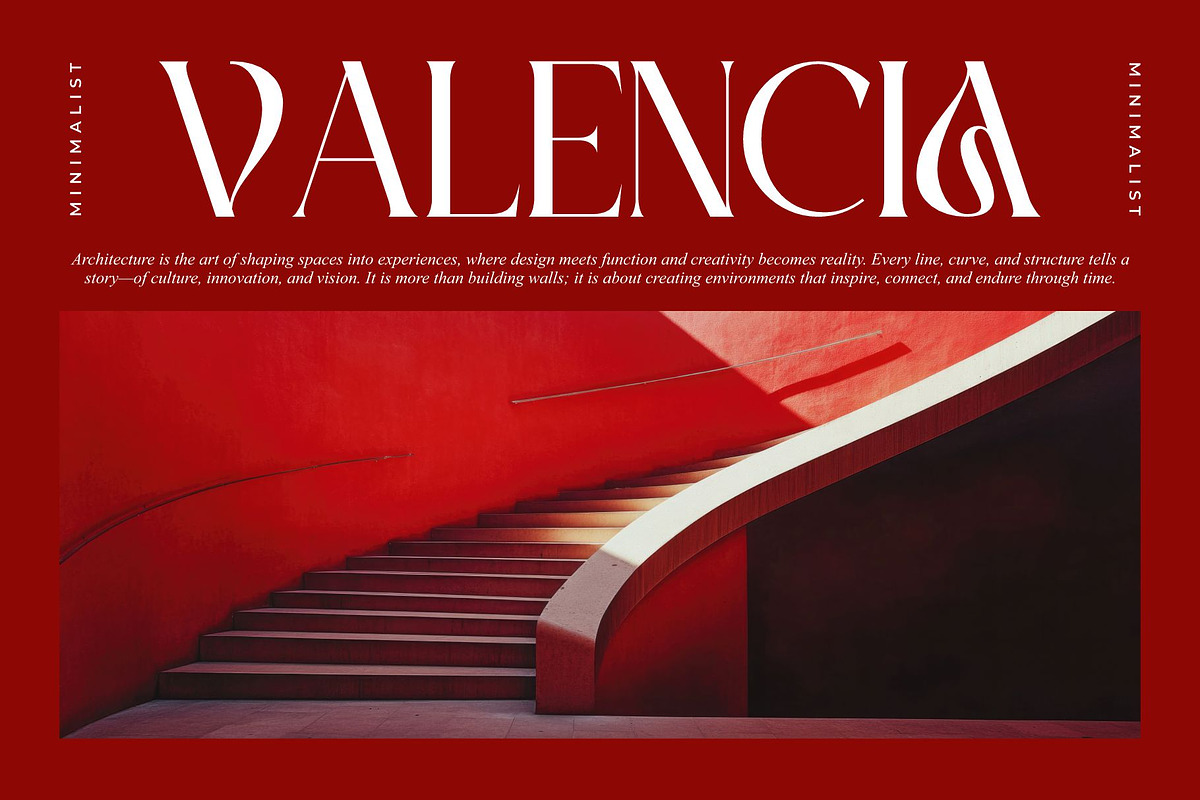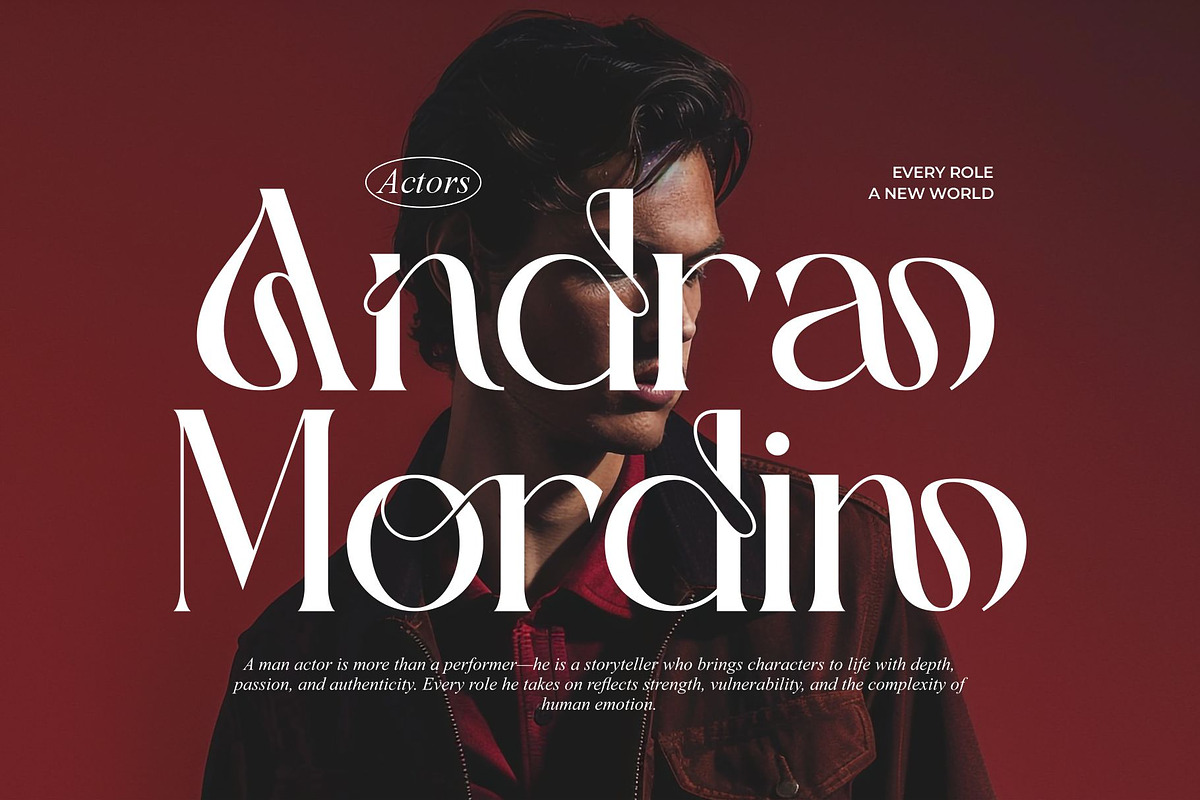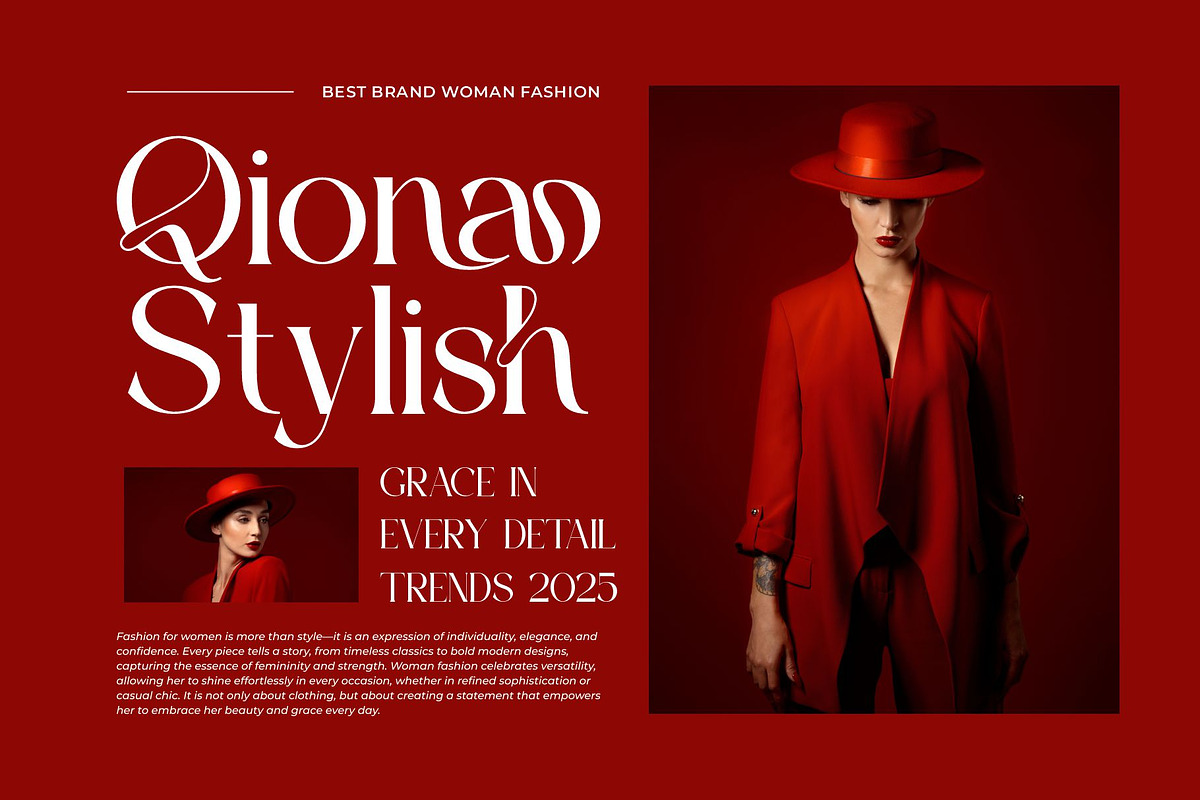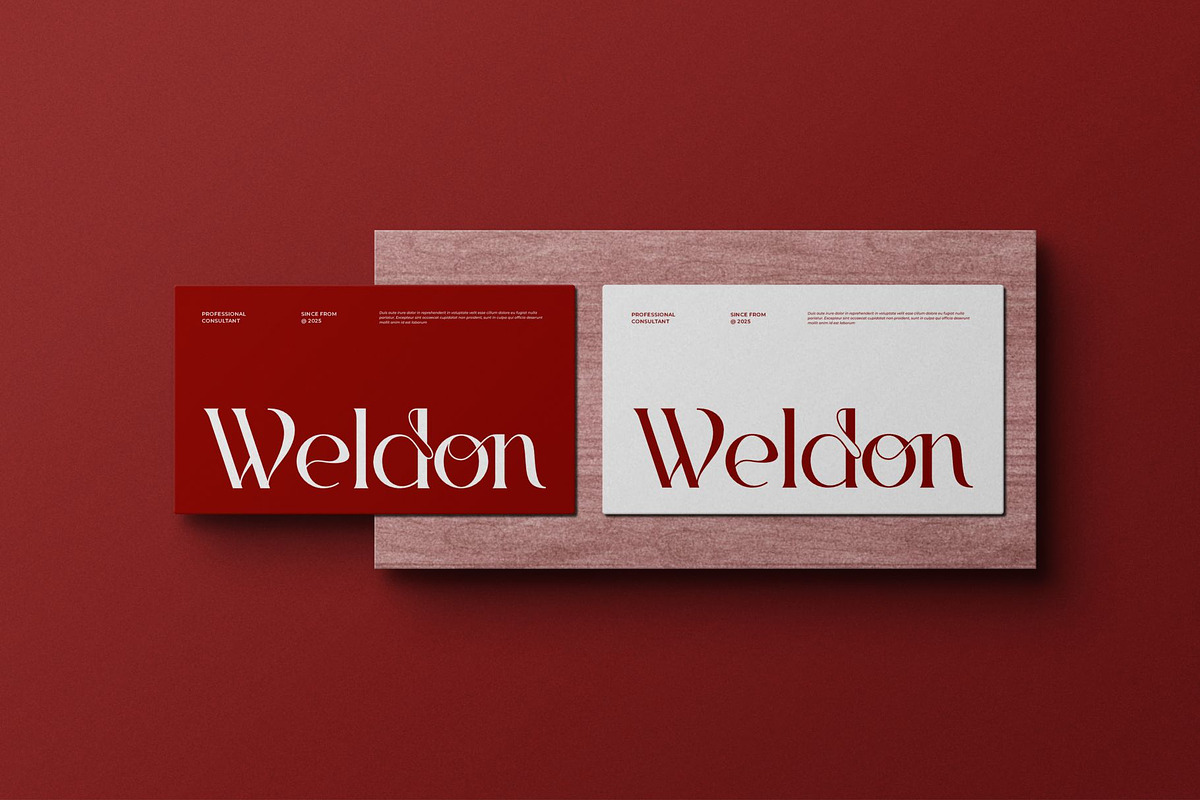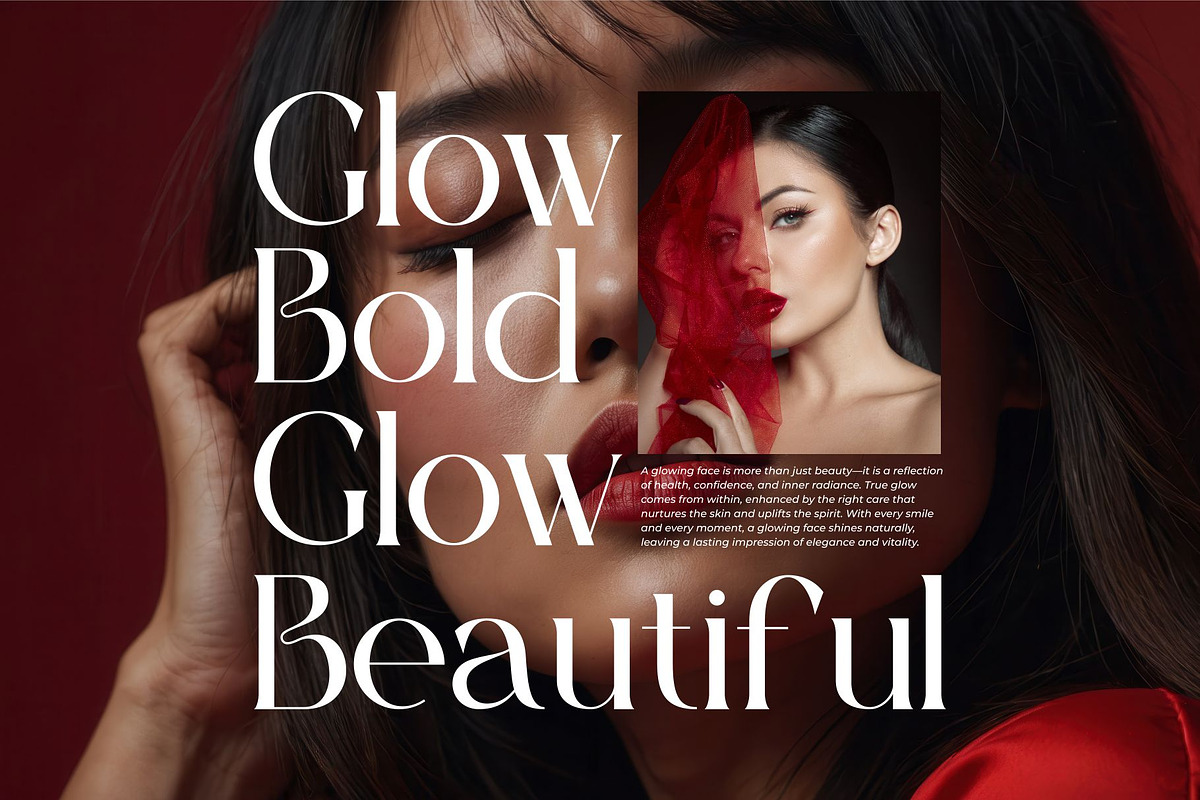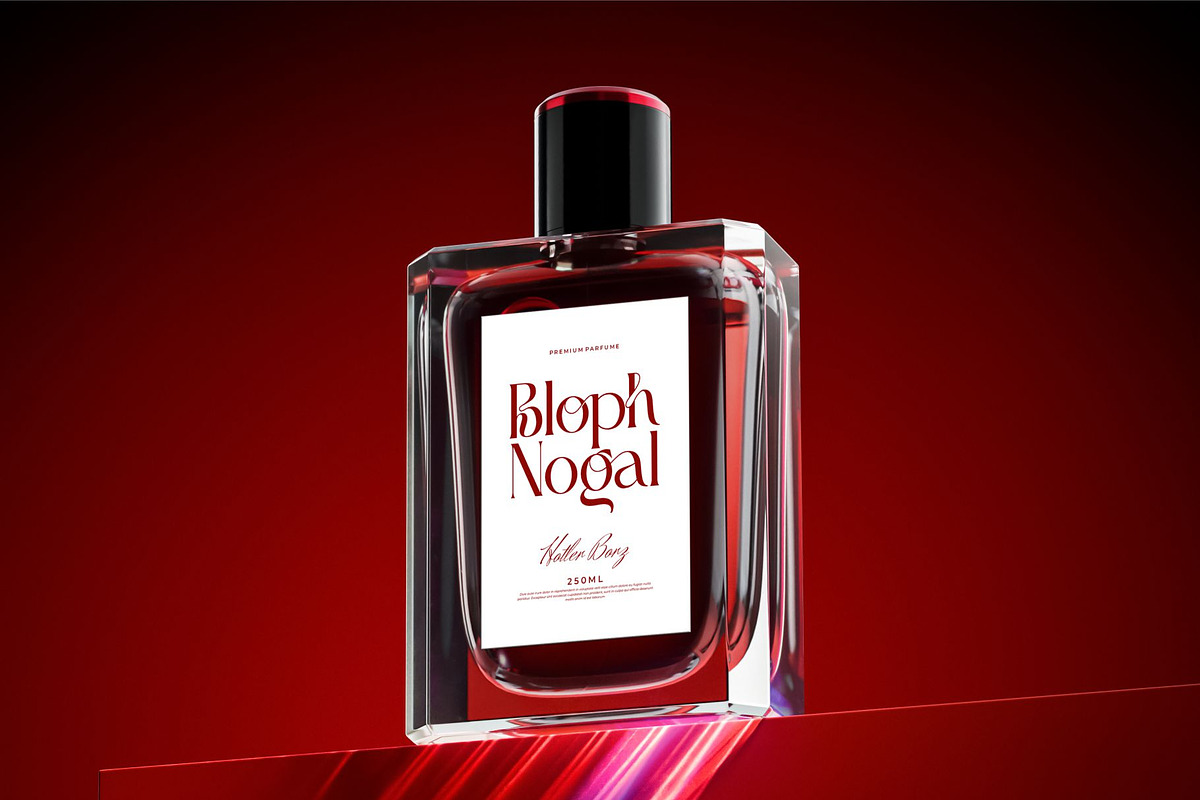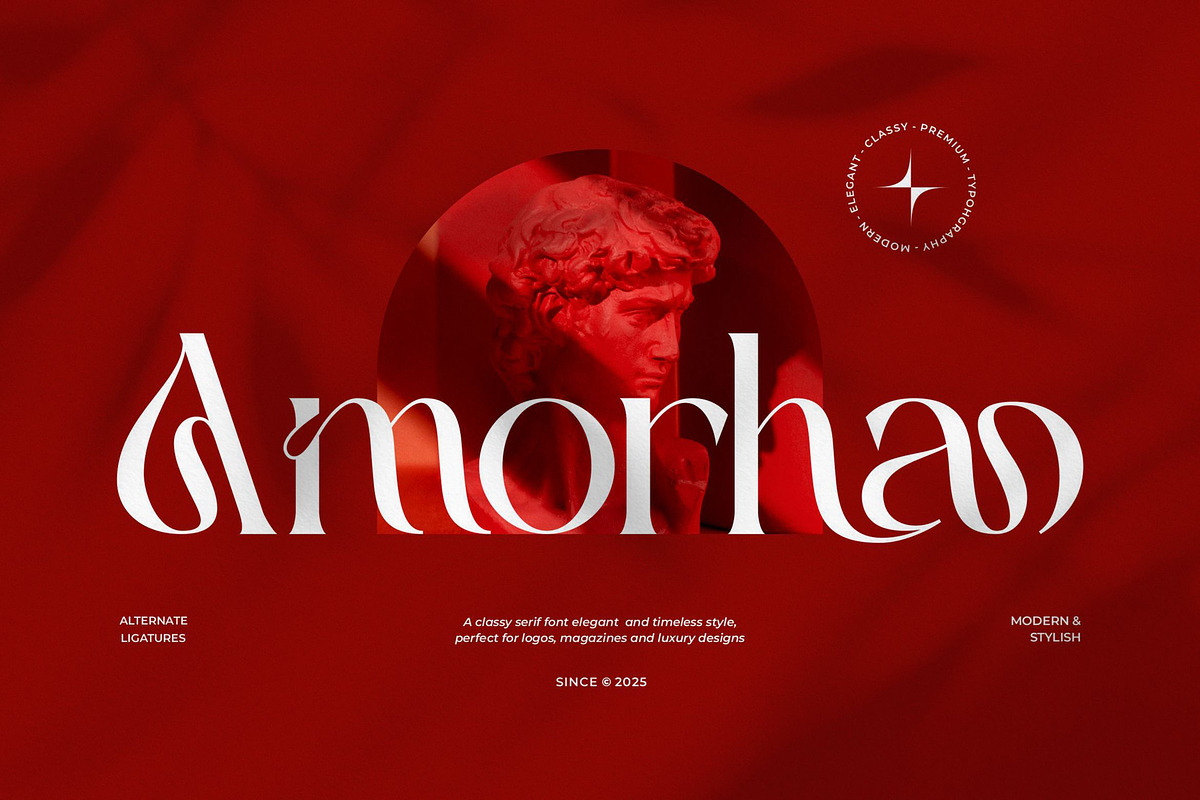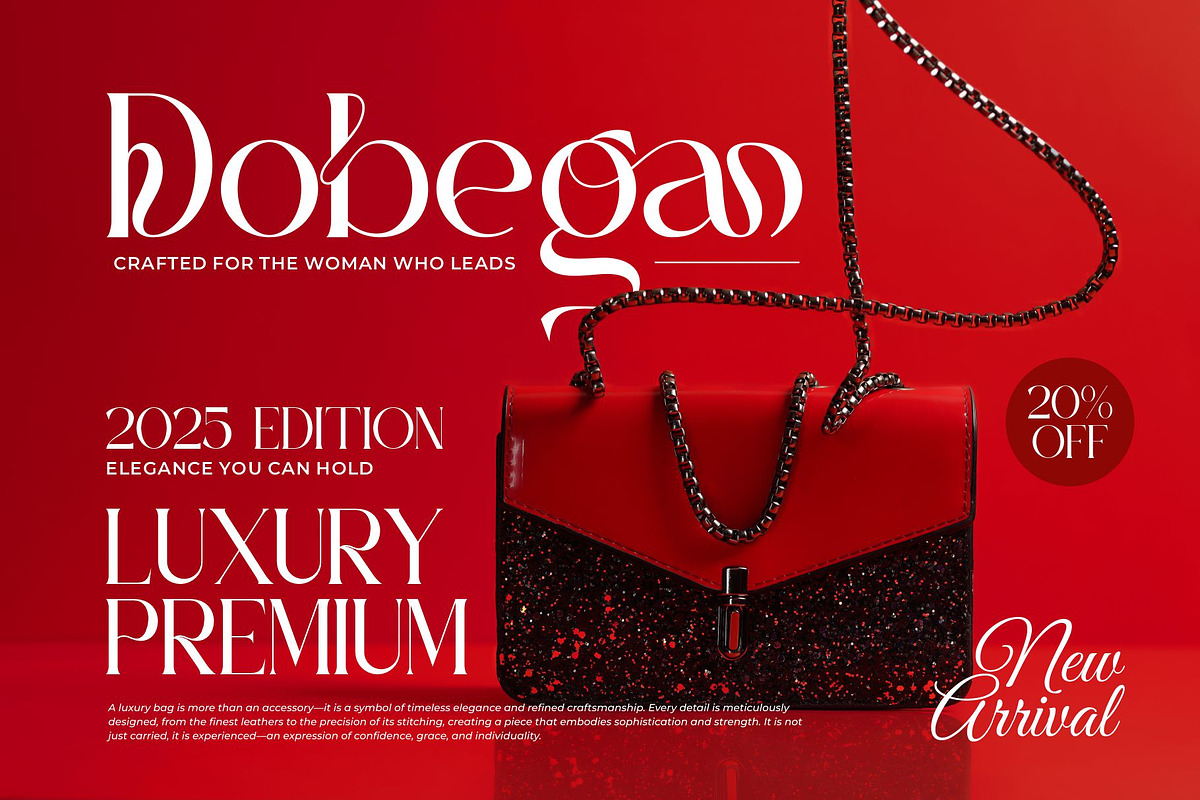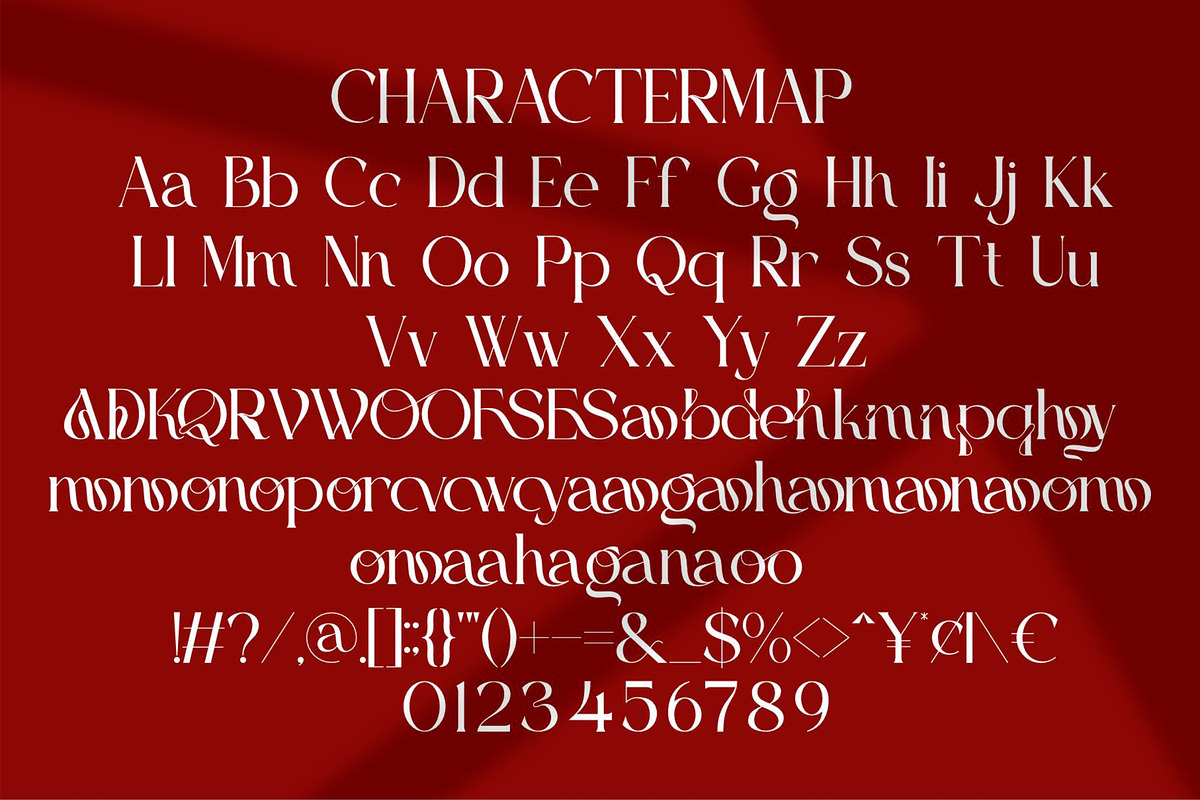
Amorha || Elegant Classy Serif Font
Amorha Serif is a elegant and classy font type for all branding and logo designs. This elegant and classy Serif font has a beautiful character. This font is suitable for invitation card designs, cool logos, movie titles, movie names, business cards, book titles, brand names, and various other designs. Amorha Serif is a smooth serif font that exudes sophistication and the moment. Its stylish ligatures make this font a perfect partner for any project. FEATURE : - TTF/OTF - WOFF/WOFF2 - Ligature - Uppercase and lowercase - Numbering and Punctuation - Works on PC or Mac - Simple Installation - Supports Adobe Illustrator, Adobe Photoshop, Adobe InDesign, also works in Microsoft Word Hope you like it. Thank you.